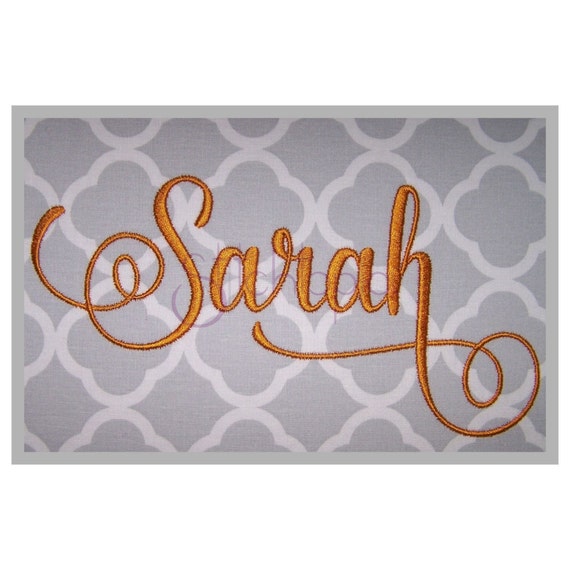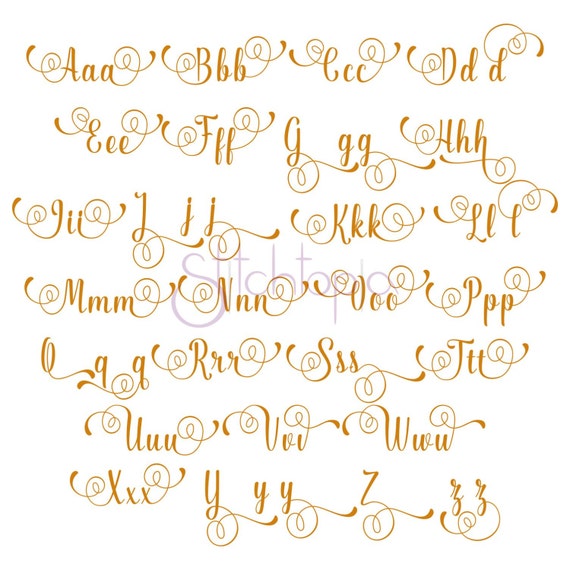
This is such a pretty script! Use it by itself or pair it with the Sarah 1 set which is sold separately.
SARAH SIZING INFORMATION
Sizing is based on the height of the capital A in the Sarah 1 Monogram Set. Many of the Sarah 2 letter are SIGNIFICANTLY LARGER because of the swirls. Larger sizes of this set may not work well with small hoops.
SARAH SETS
Both Sarah sets are from the same parent font. Each set can be used on its own or letters can be combined and interchanged. Uppercase letters and alternate lowercase letters are unique to this set. Plain lowercase letters are shared by both Sarah sets so the sets can be used on their own.
Included: Uppercase, Lowercase & Alternate Lowercase Letters